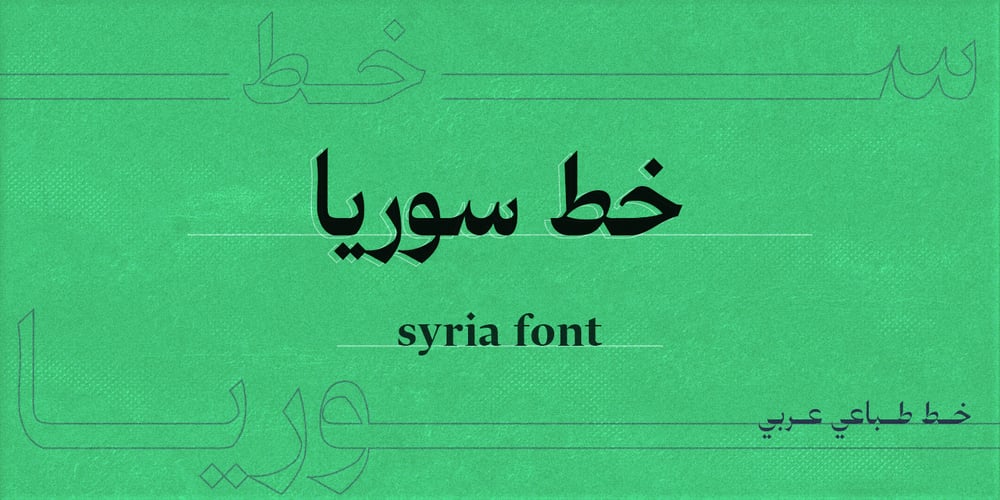
Syria Font Family was designed by Mohammad Alhaj Ahmad and published by syria arabic. Syria contains 2 styles and family package options. A modern and elegant Arabic font that mimics ancient hand-drawn Arabic calligraphy. The font is balanced and appears consistent